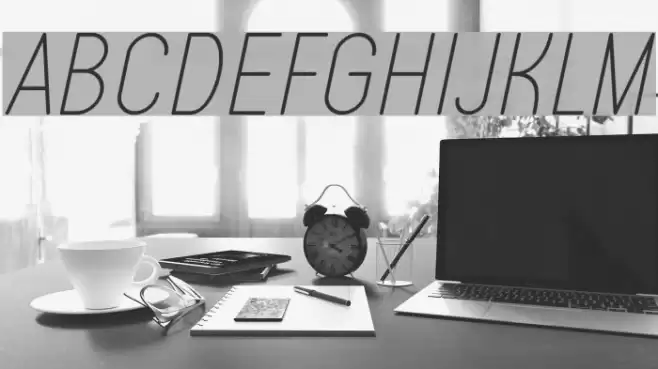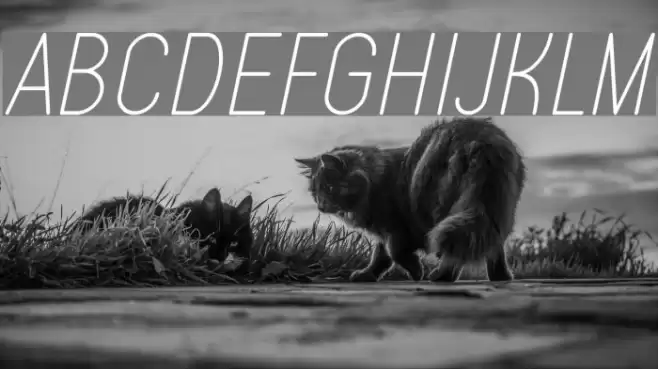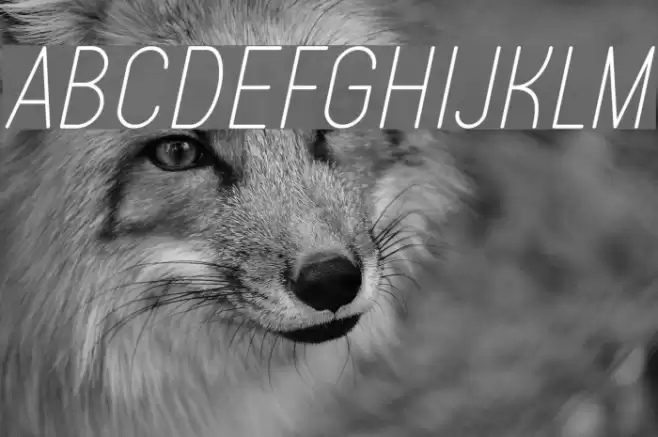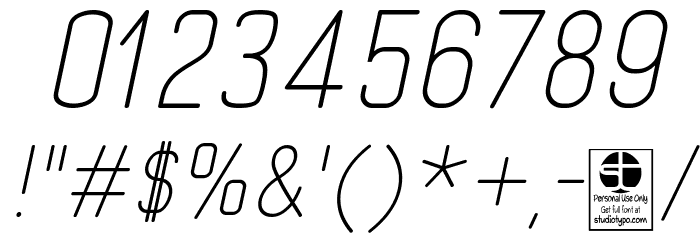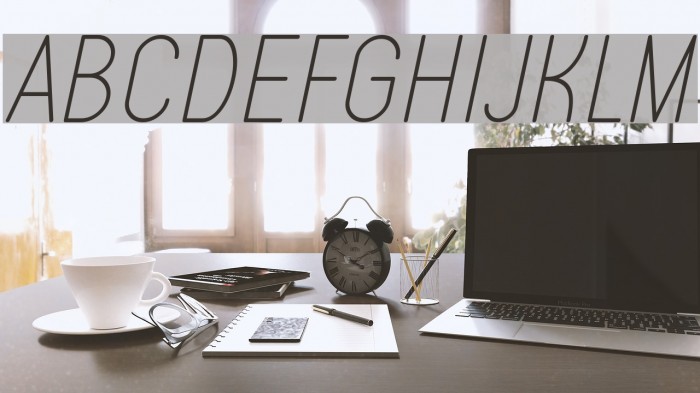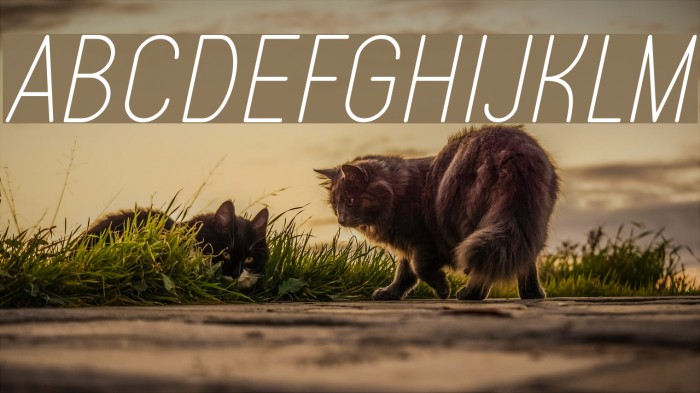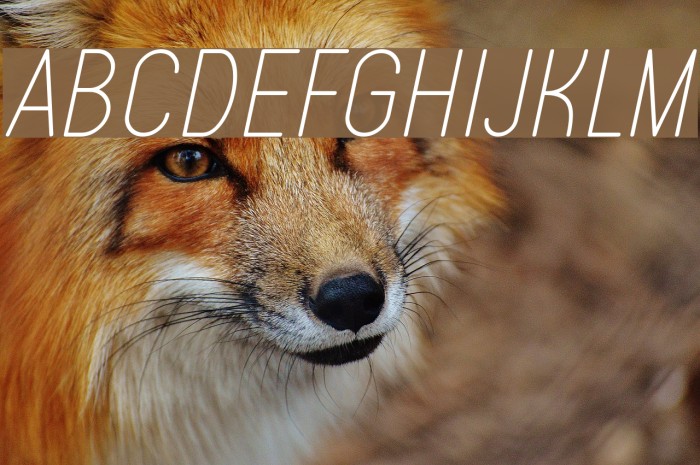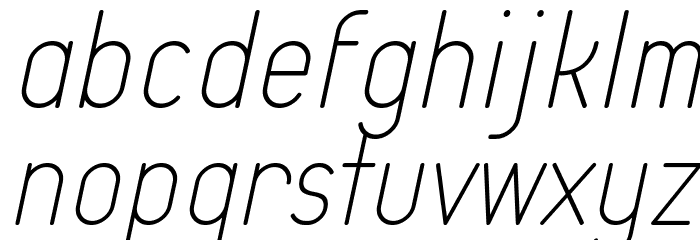
Typo Quik Thin Demo Italic Font
Typo Quik Thin Demo Italic Description
This font features a sleek, modern design with a thin, elegant structure. The characters are slightly slanted, giving it an italicized appearance that adds a sense of motion and fluidity. The strokes are consistently thin, contributing to a light and airy feel. The spacing between characters is normal, ensuring readability while maintaining a clean aesthetic. Its minimalist style is suitable for contemporary designs, offering a sophisticated touch to any project.
A thin, modern italic font with a sleek and elegant design from Uncategorized fonts.
- Proposed Projects: Ideal for fashion magazines, modern branding, minimalist posters, and elegant invitations.